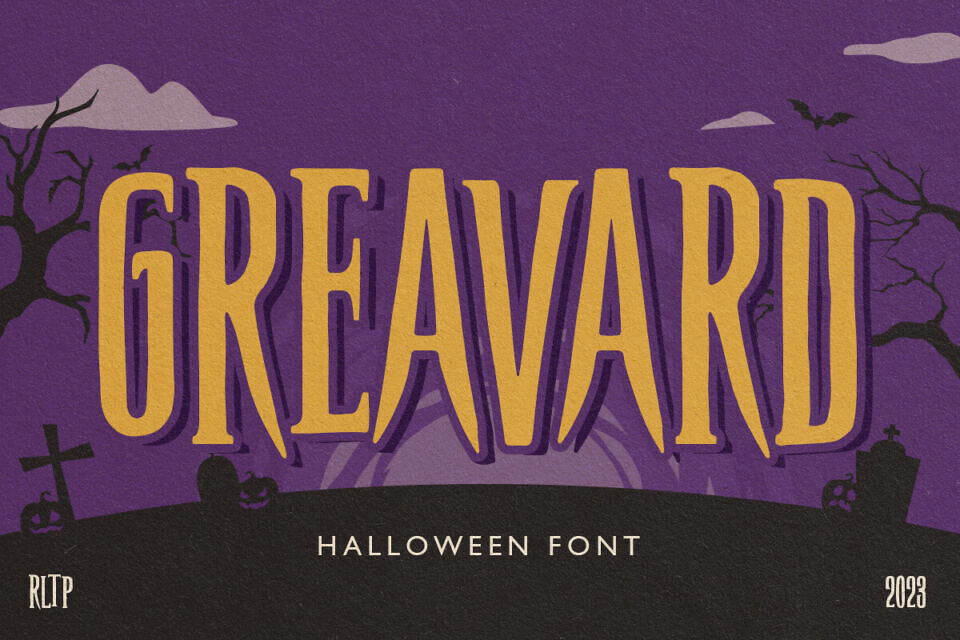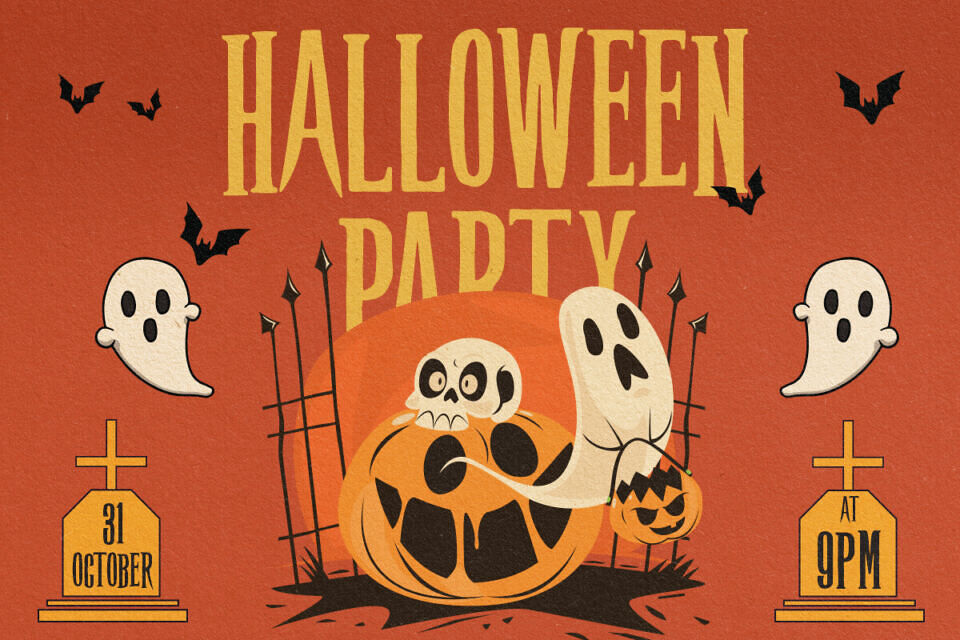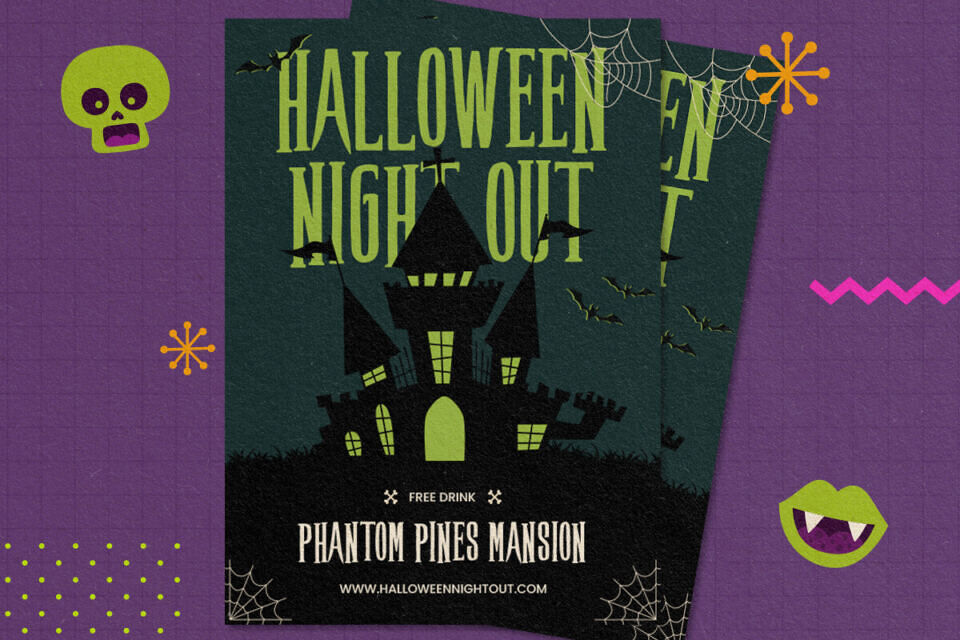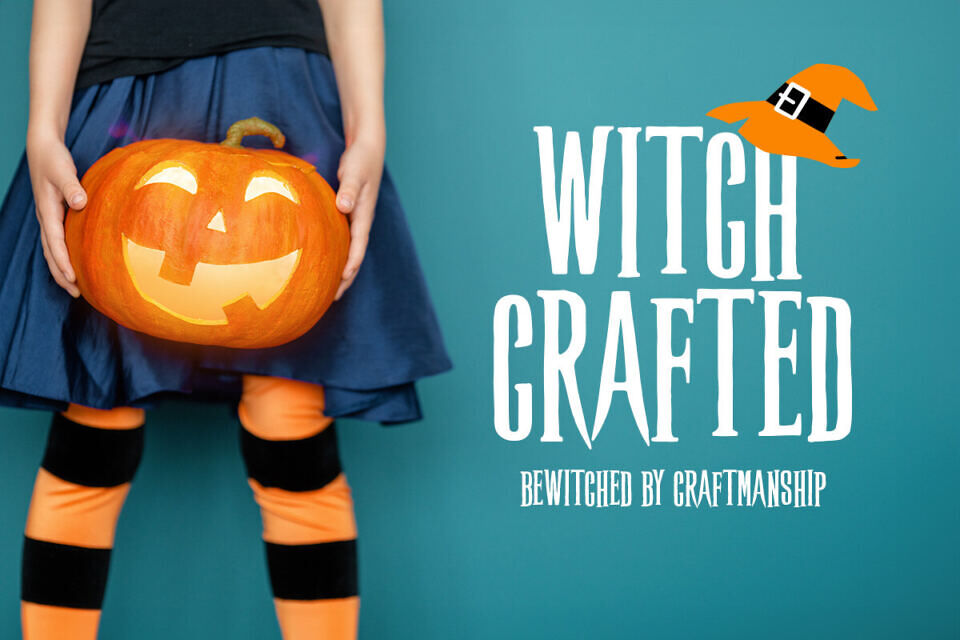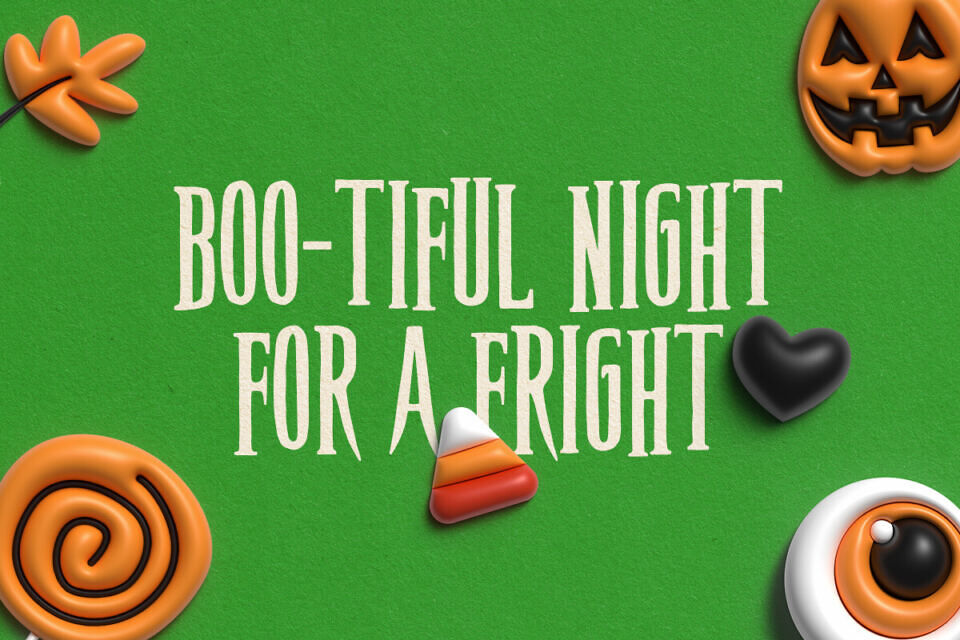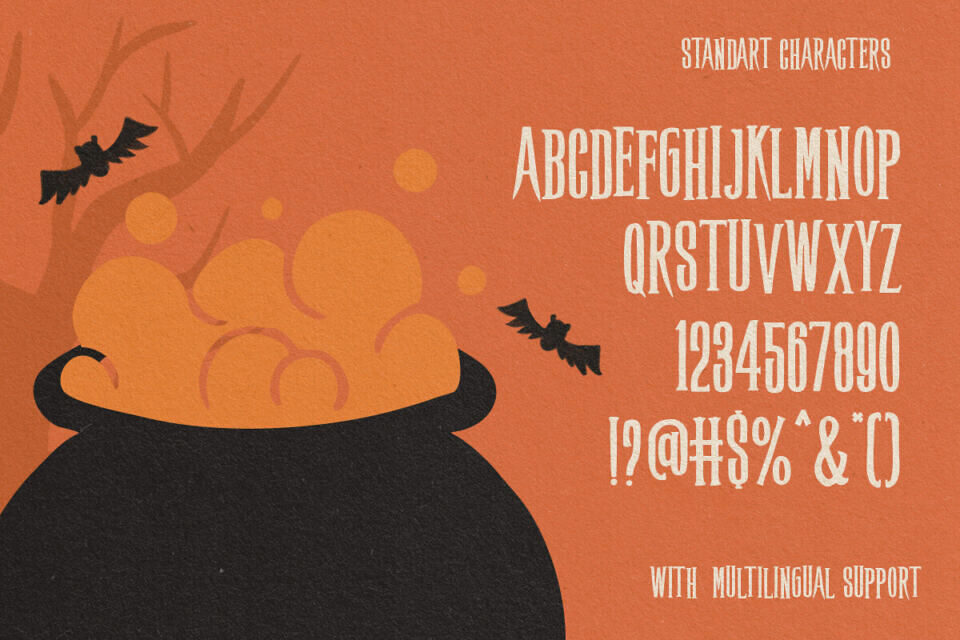
Introducing “Greavard,” the ultimate Halloween-themed condensed serif font. With its eerie charm and sophisticated design, “Greavard” is perfect for creating spine-tingling posters, invitations, and more.
From creepy pumpkins to ghostly lanterns, these extras will take your designs to the next level. Unleash your inner Halloween spirit with “Greavard” and craft bewitching designs that leave a lasting impression.